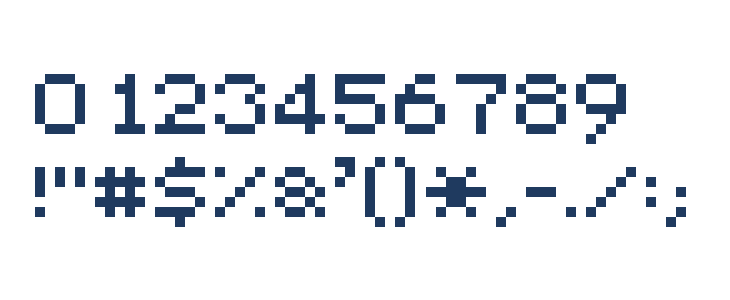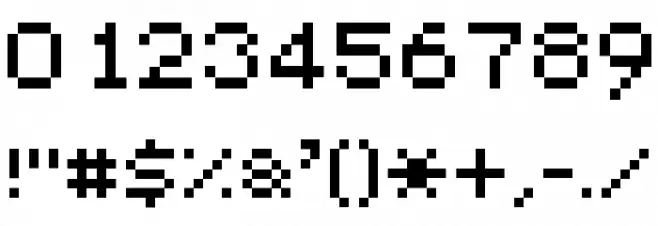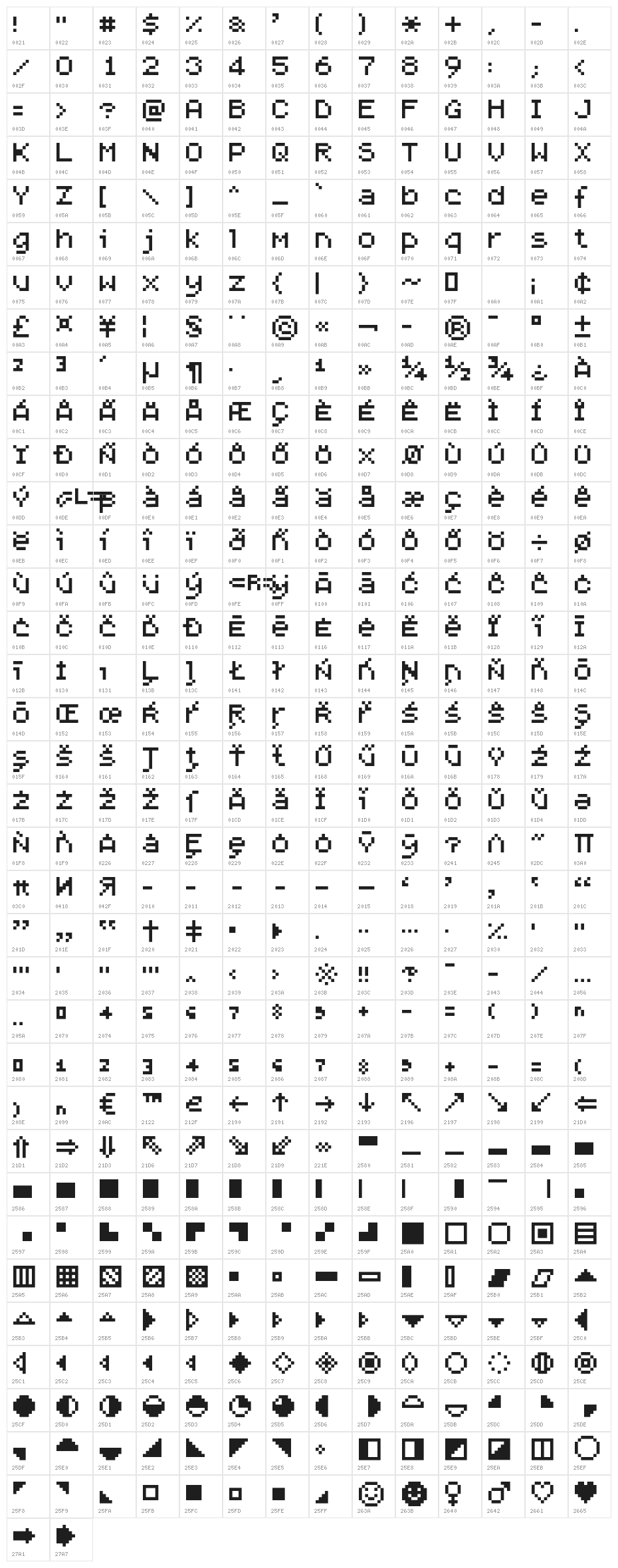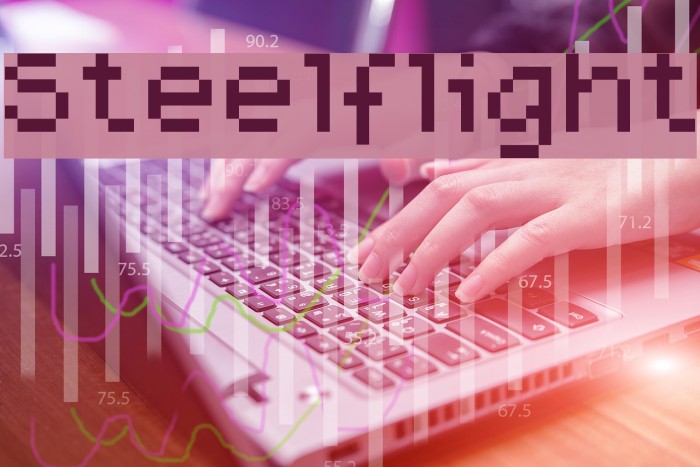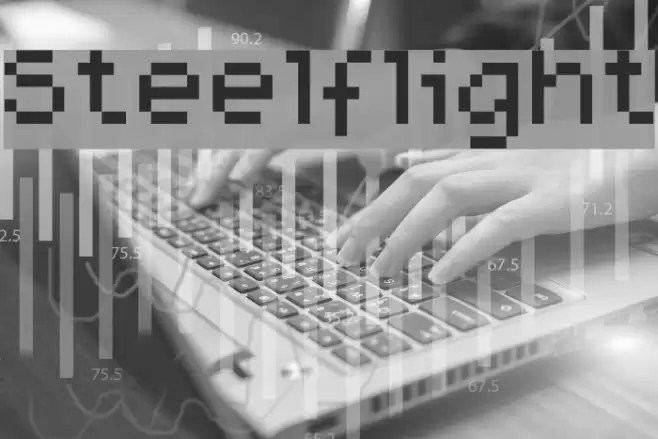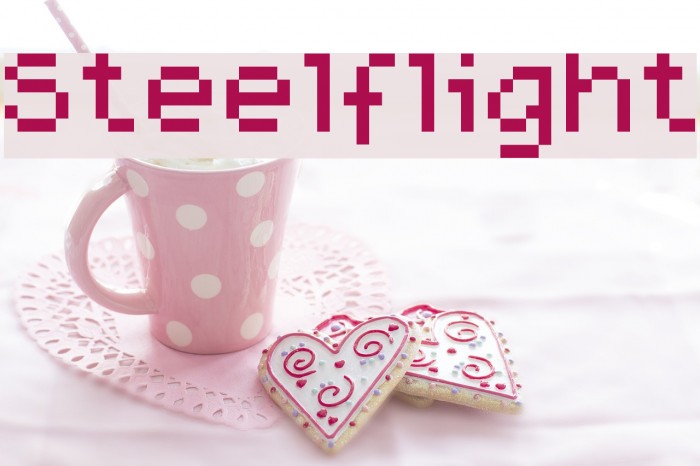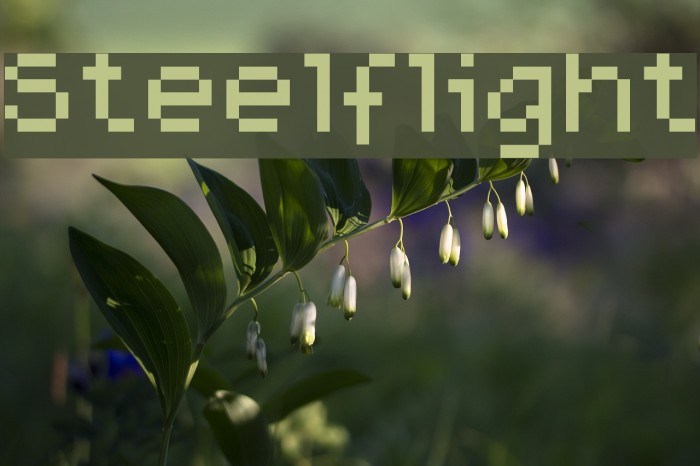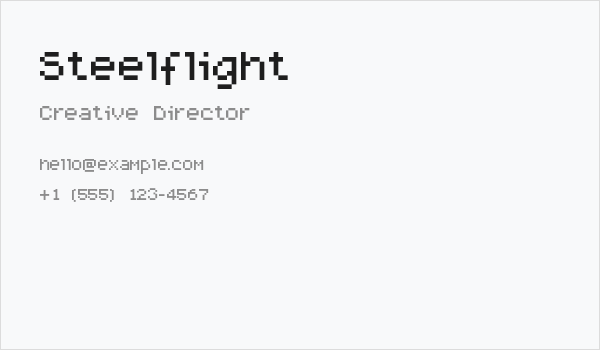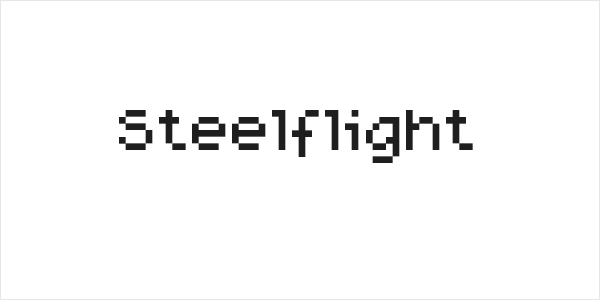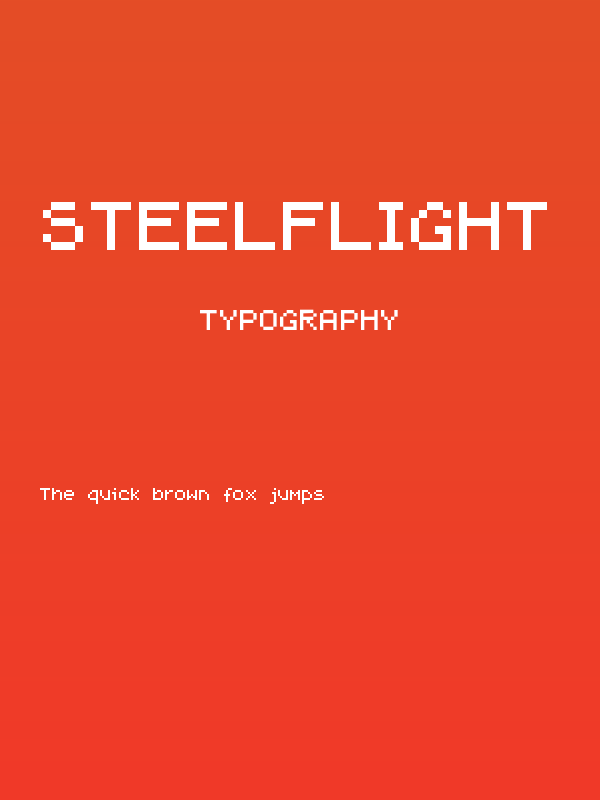
Steelflight Font
Steelflight Description
This font features a pixelated, blocky design reminiscent of early digital displays and video games. Each character is composed of uniform square blocks, giving it a distinctly retro and digital aesthetic. The uppercase and lowercase letters maintain a consistent height and width, emphasizing a monospaced appearance. Numbers and special characters follow the same pixelated style, ensuring uniformity across all glyphs. The font's simplicity and geometric structure make it highly legible, even at smaller sizes, while its nostalgic design evokes a sense of classic computing and arcade games.
| Overall Style | Retro |
| Use Case | Logos, Digital displays, Video game graphics |
| Proposed Projects | Ideal for retro-themed designs, video game graphics, digital art projects, and any creative work that seeks to evoke nostalgia for early computing. |